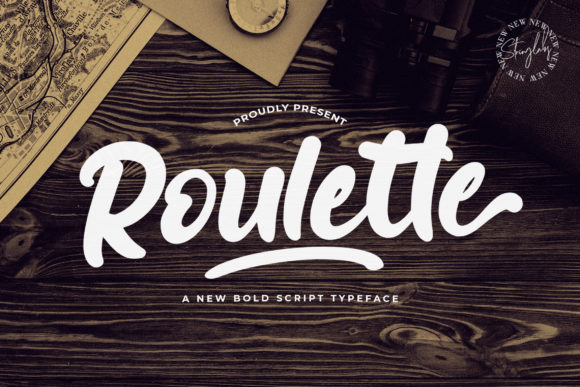
Introducing Roulette Font – The Enchanting Script for Captivating Signatures
Indulge in the allure of Roulette Font, a mesmerizing script typeface that will transform your designs into works of art. Its graceful curves and alluring vintage charm evoke a sense of timeless elegance, making it the perfect choice for crafting captivating signatures that leave a lasting impression.
With its meticulously crafted strokes, Roulette Font exudes a distinct personality that will elevate your branding to new heights. Its unique blend of strength and fluidity gives it a timeless appeal, ensuring that your designs stand out from the crowd.
Unleash the full potential of your creativity with Roulette Font. Its PUA-encoded format grants you effortless access to a treasure trove of glyphs and swashes, empowering you to add a touch of individuality and flair to your creations.
Embrace the captivating allure of Roulette Font and elevate your designs to the next level. Let its enchanting script guide you towards creating timeless signatures that will leave an unforgettable mark on the world.